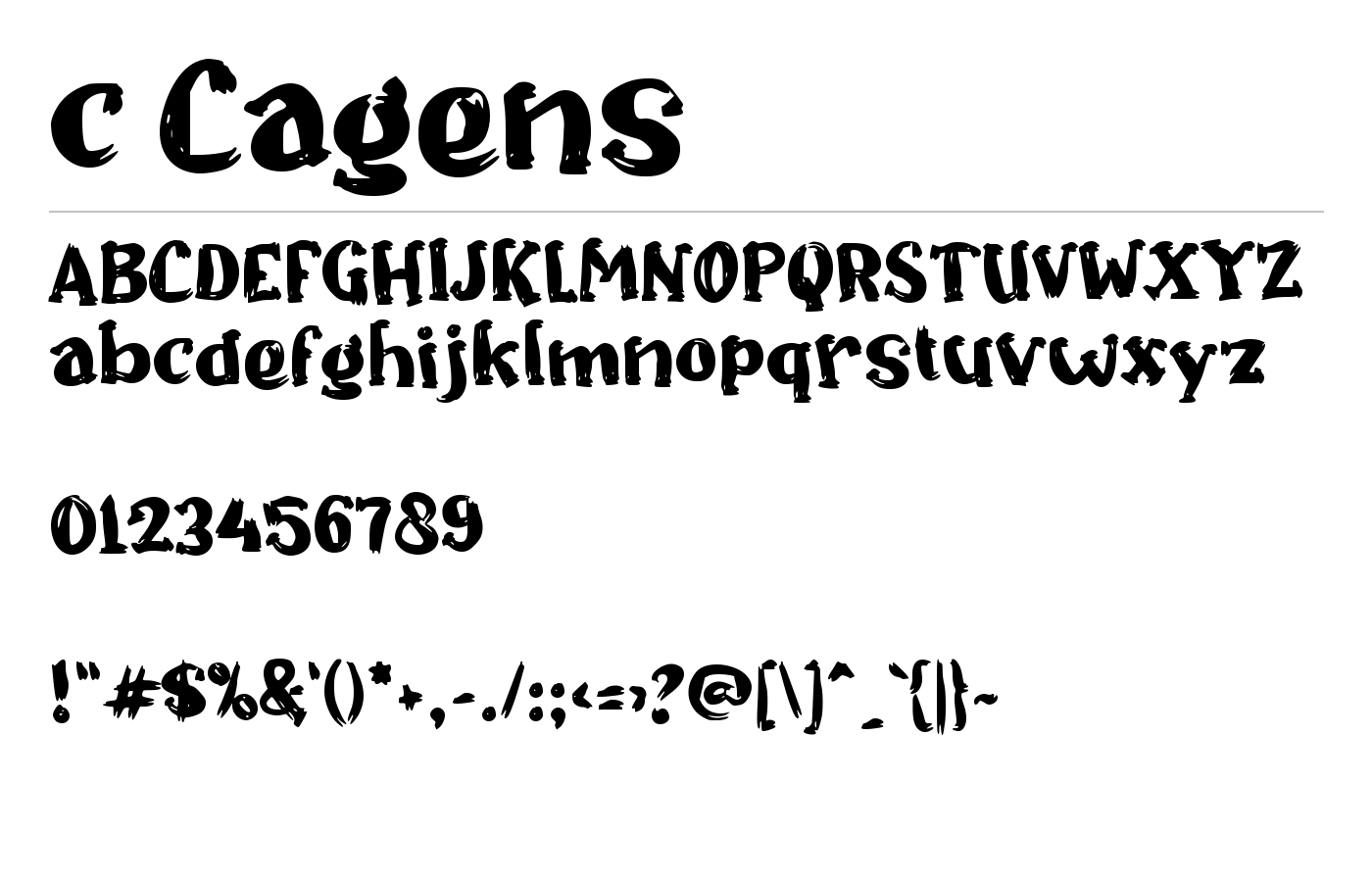
Cagens is a bold, playful serif font with a hand-painted, brushstroke texture that adds character and energy to its unique letterforms. Its irregular edges and uneven strokes give it a lively, informal feel, making it ideal for creative projects, eye-catching headlines, and branding that wants to stand out with a fun, artistic vibe. This font works best for posters, logos, and designs where a casual, expressive touch is needed to engage the audience.
c Cagens Font
About c Cagens Font